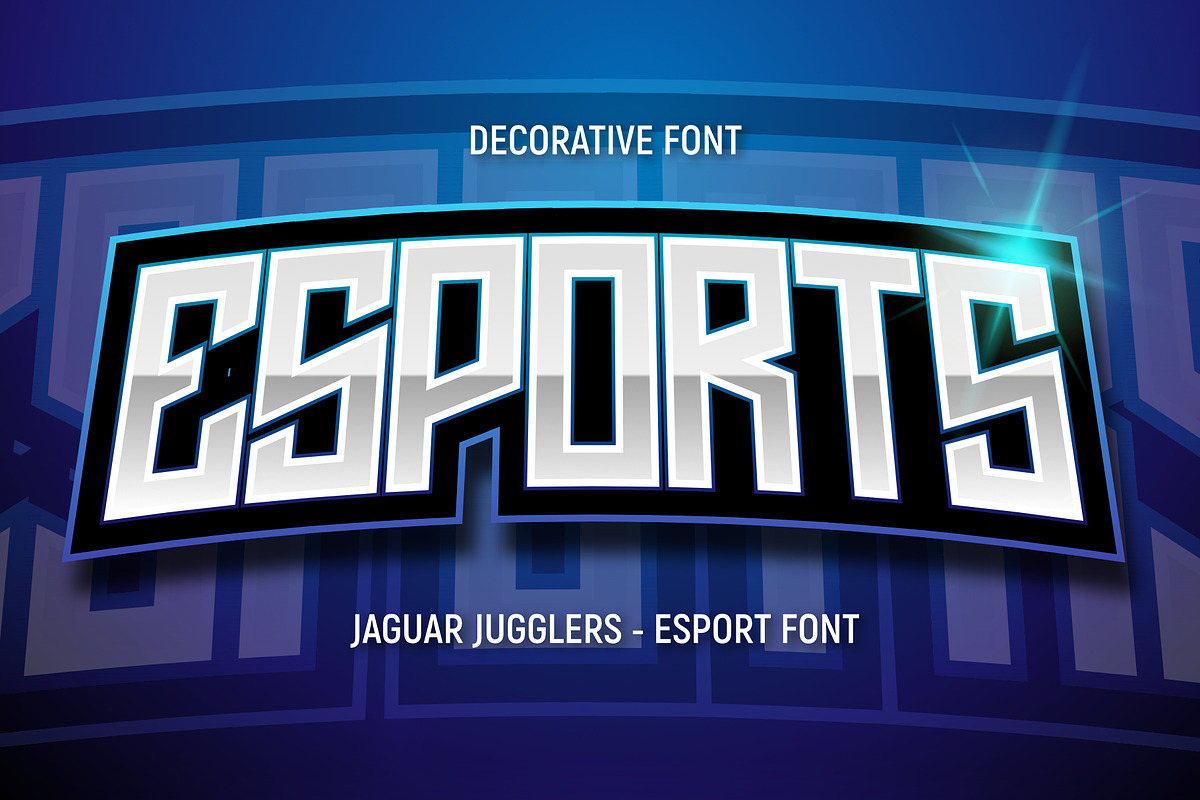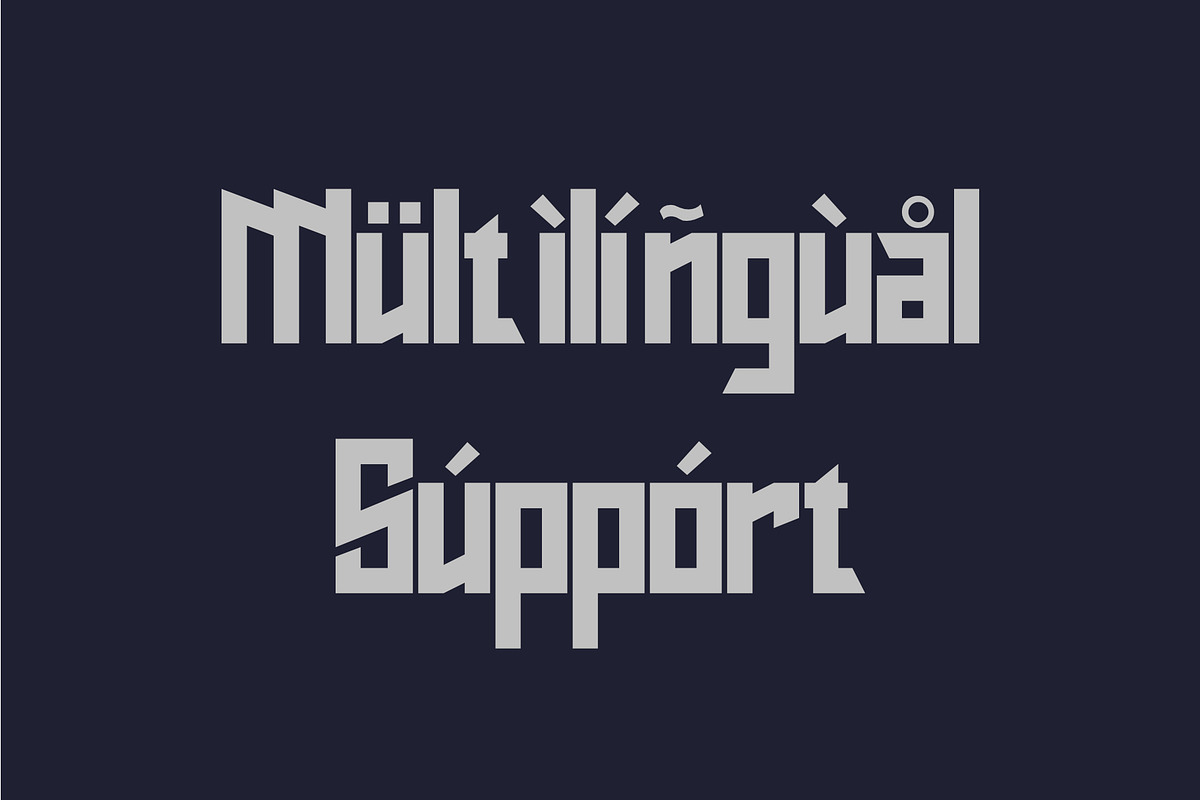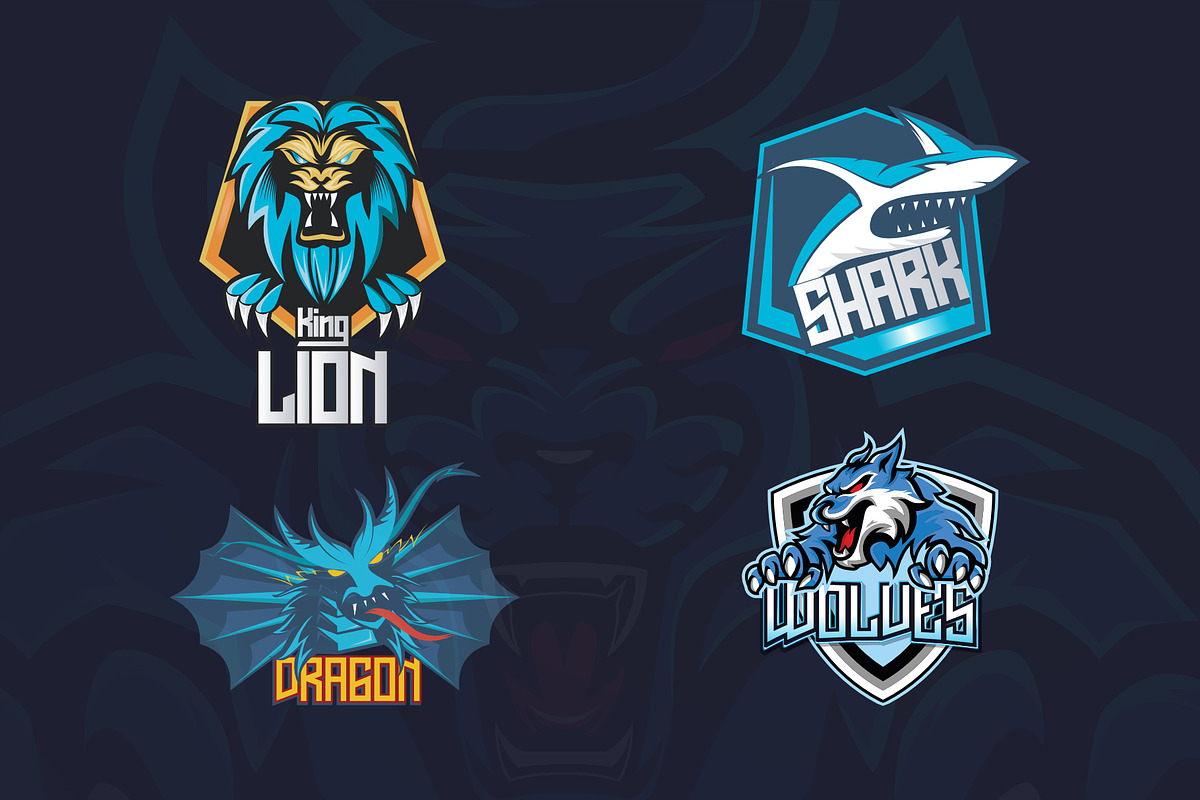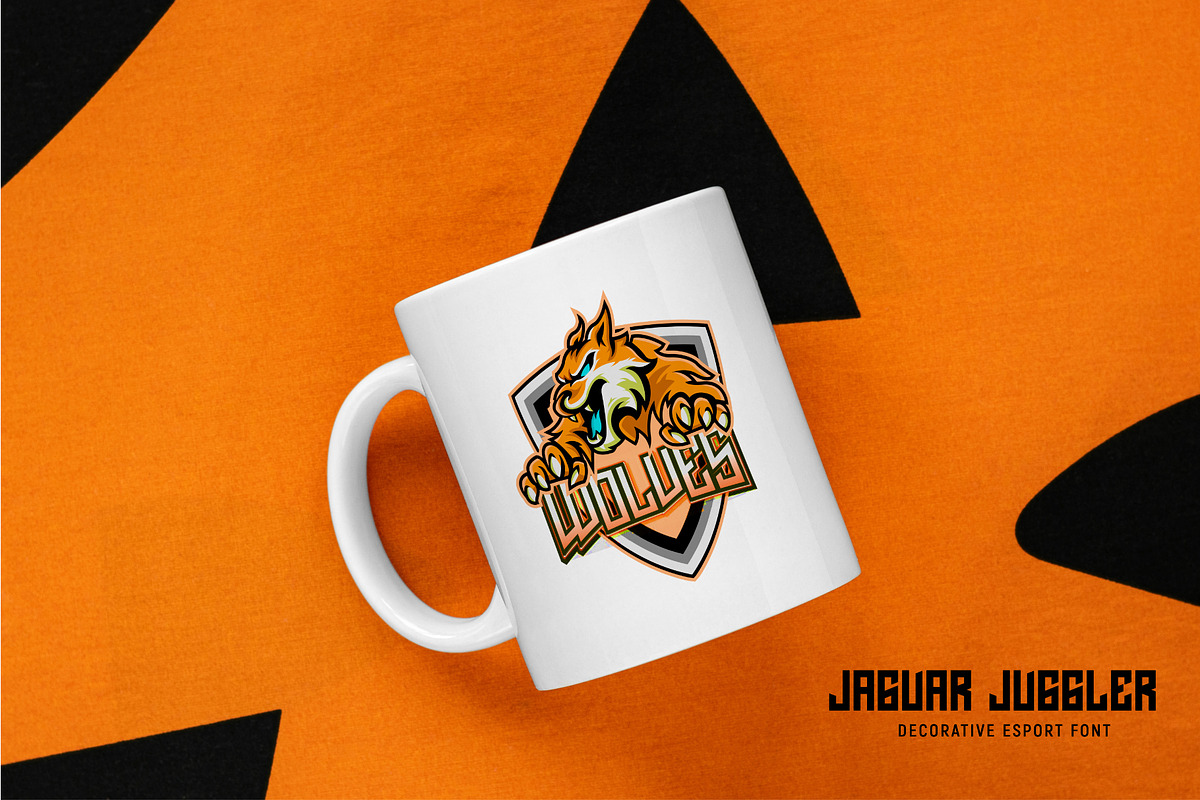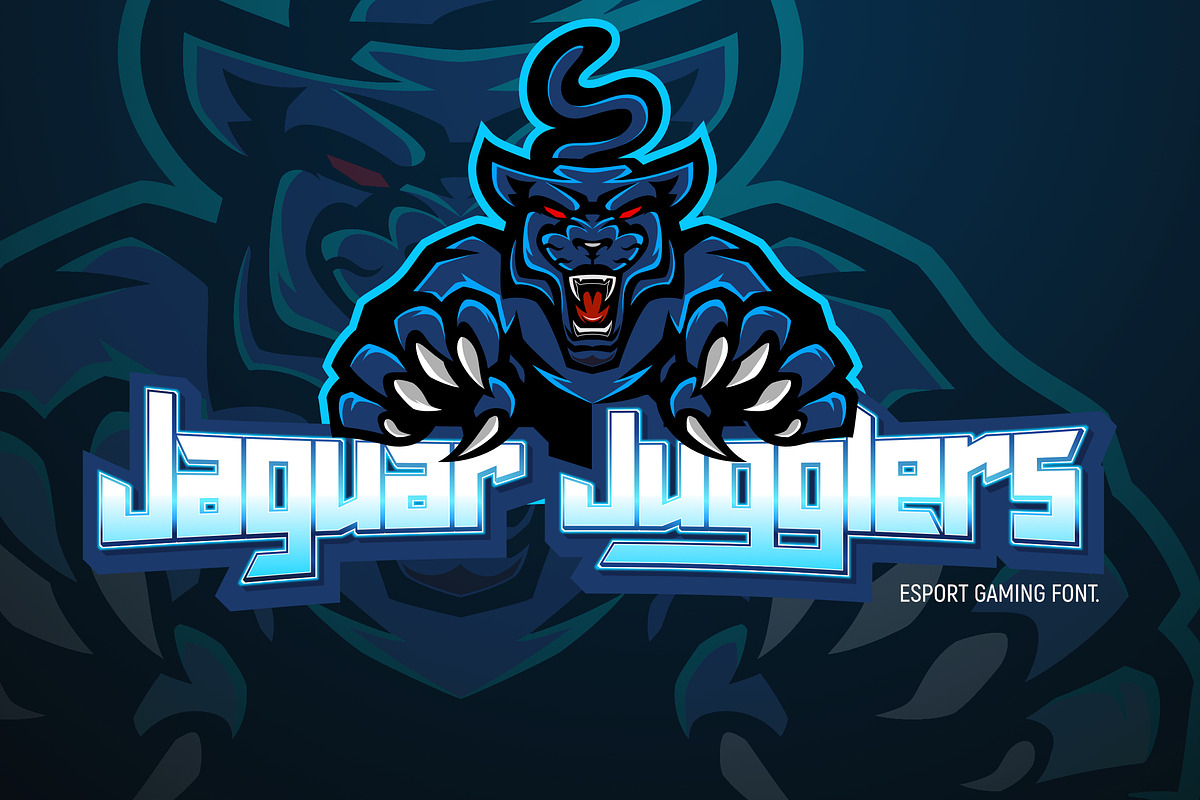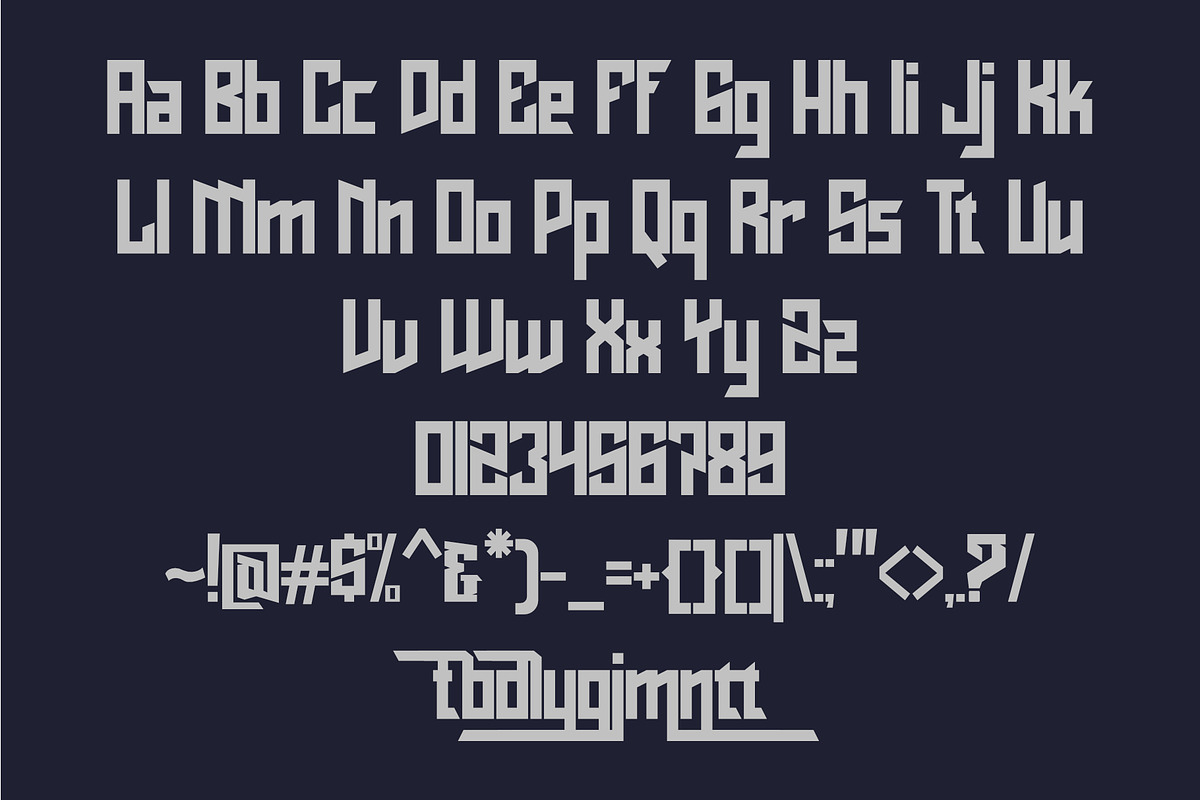
Jaguar jugglers
Jaguar jugglers Font
This pair was inspired by the esport gaming logo design that i saw on some coffee shop, It was crafted by hand specially to add natural handmade feeling in its brand identity than i make it clean with pentool.
Opentype features
Jaguar jugglers font has 177 character set included
Jaguar jugglers Font is very good looking in logo, labels, t-shirt prints, product packaging, invitations, advertising and others.
Multilingual support (Western European characters).